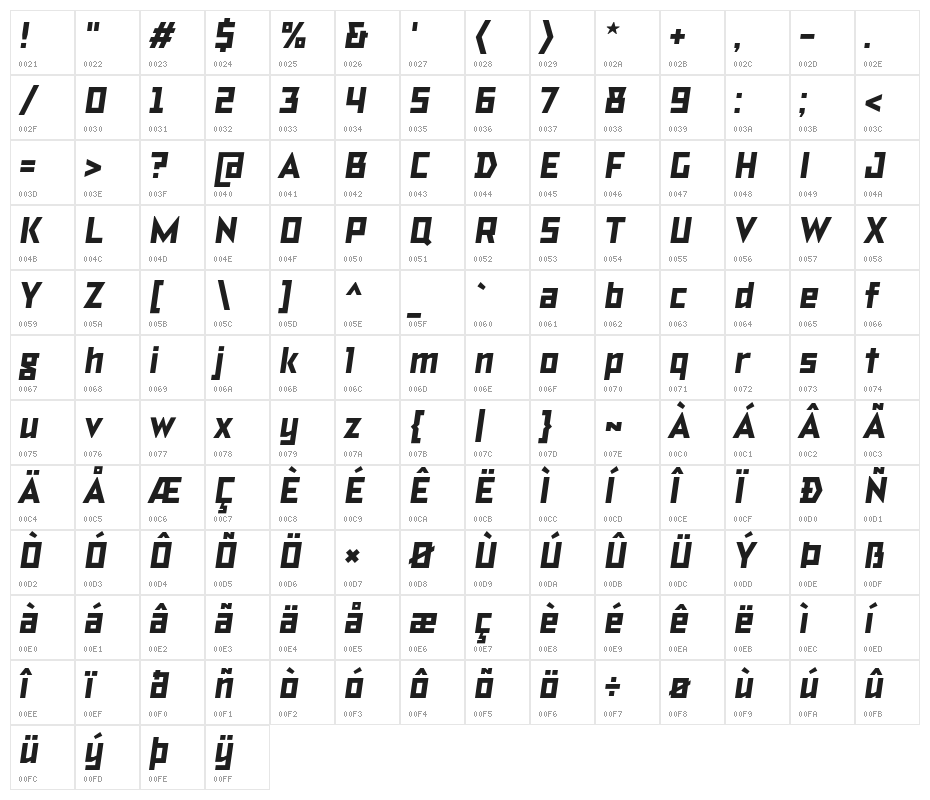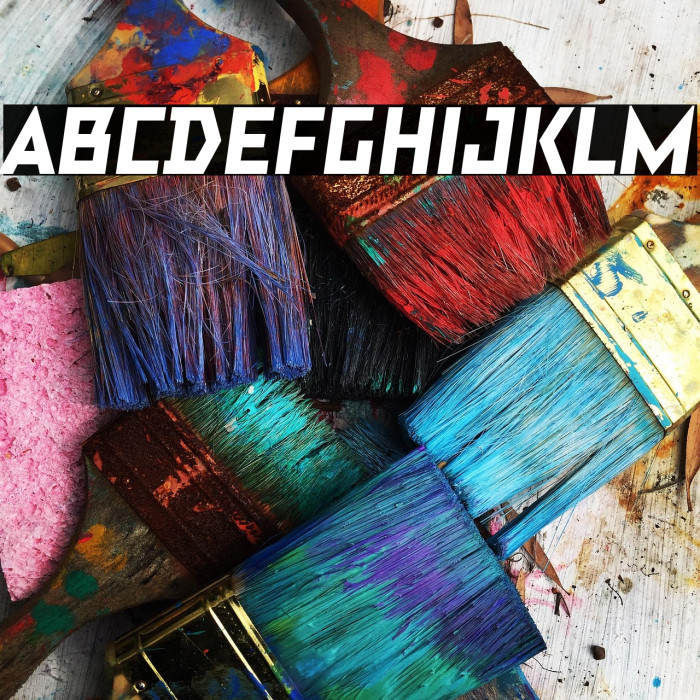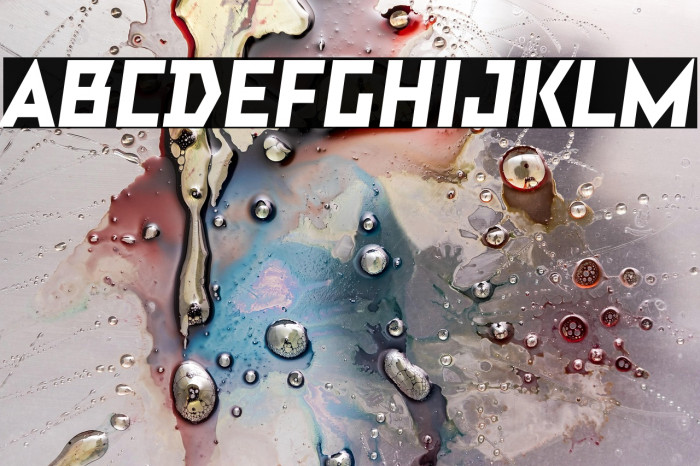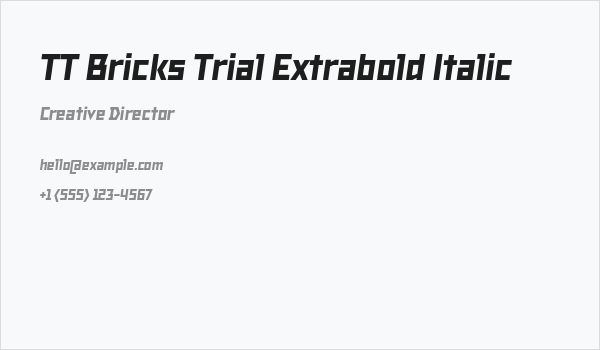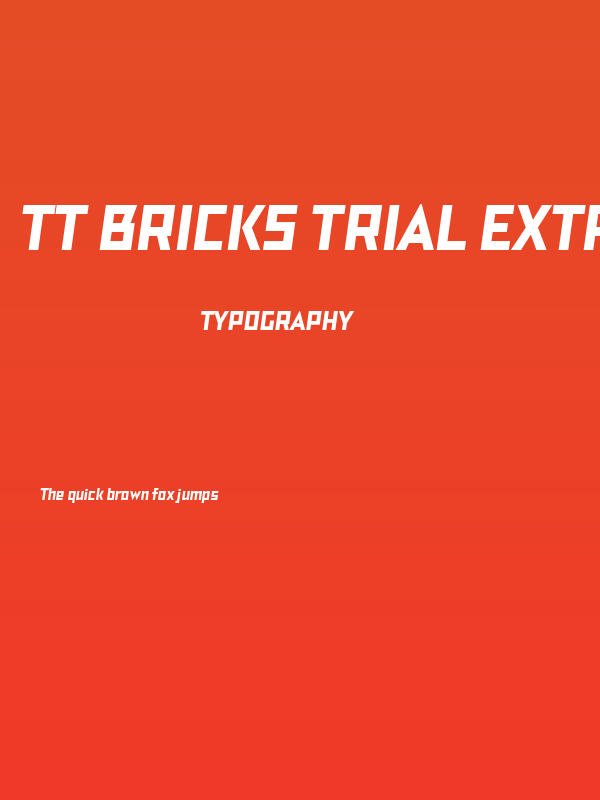
TT Bricks Trial Extrabold Italic Font
TT Bricks Trial Extrabold Italic Description
This font features a bold and dynamic design with a strong geometric influence. The characters are sharply angled, giving them a modern and edgy appearance. The italic style adds a sense of movement and energy, making it stand out in any design. The uppercase and lowercase letters maintain a consistent style, with clean lines and a uniform structure. Numbers and special characters are designed with the same boldness, ensuring a cohesive look across all text elements. This font is perfect for projects that require a strong visual impact.
| Proposed Projects | Ideal for branding, headlines, posters, and any design needing a bold statement. |